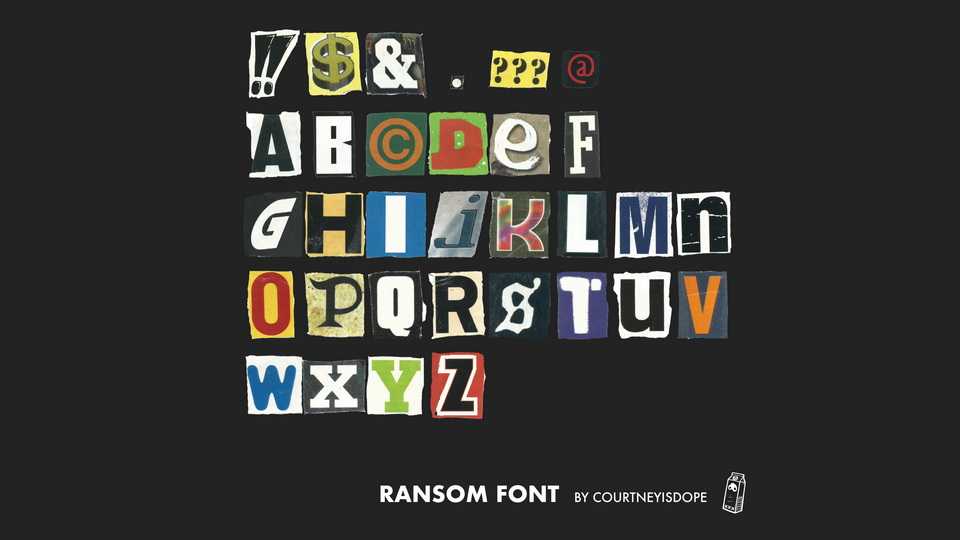
Download Ransom font, a unique display typeface created with actual cut-out magazine letters. Ransom font is perfect for apparel designs, music cover art, flyers, banners, posters, book cover, and more with a cool retro mood and aesthetics.
Designer: Courtney Howells